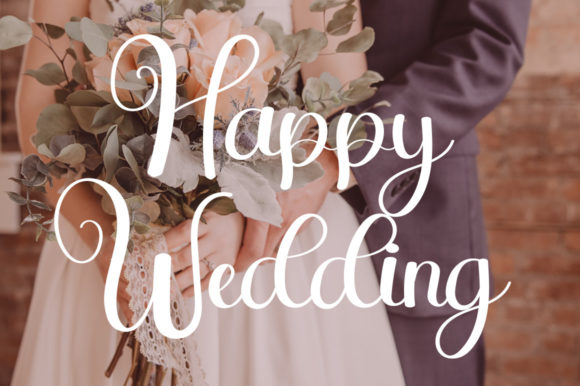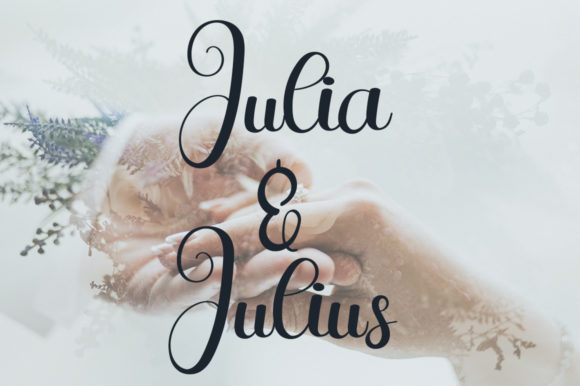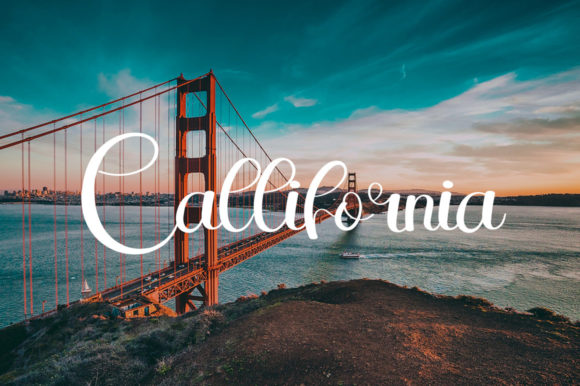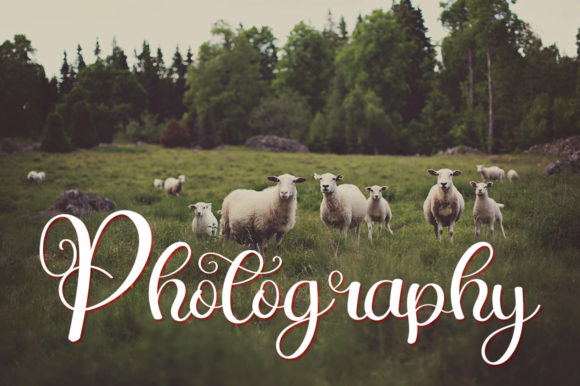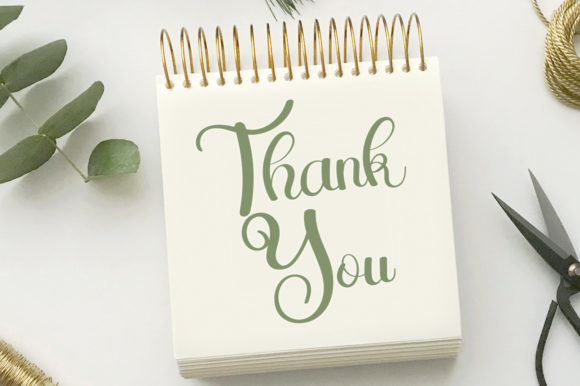
Introducing the Brilliant Mandala Font: Elevate Your Designs with Elegance
Are you a designer or crafter looking for a font that exudes sophistication and charm? Look no further than the Brilliant Mandala Font. This stunning handwritten font is perfect for adding a touch of elegance to your designs, from wedding invitations to logos and everything in between.
What is the Brilliant Mandala Font?
The Brilliant Mandala Font is a chic, detailed, and elegant handwritten font that is sure to impress. Its beautiful, flowing script is perfect for designs that require a personalized style, such as:
- Wedding invitations and thank you cards
- Wedding decorations and signage
- Greeting cards and stationery
Why Choose the Brilliant Mandala Font?
There are many reasons why the Brilliant Mandala Font stands out from the crowd. Here are just a few:
- Elegant and sophisticated: The Brilliant Mandala Font has a refined, upscale feel that’s perfect for high-end designs.
- Versatile: This font looks beautiful on a variety of design materials, from digital files to print materials.
- Easy to read: Despite its intricate details, the Brilliant Mandala Font is surprisingly easy to read, making it perfect for body text and headings.
- Unique: The Brilliant Mandala Font has a distinctive, one-of-a-kind style that’s sure to set your designs apart.
How to Use the Brilliant Mandala Font
The Brilliant Mandala Font is incredibly versatile and can be used in a variety of design applications. Here are a few ideas to get you started:
- Wedding designs: Use the Brilliant Mandala Font to create stunning wedding invitations, save-the-date cards, and wedding stationery.
- Branding and logos: The Brilliant Mandala Font is perfect for creating elegant logos and branding materials for businesses and entrepreneurs.
- Stationery and cards: Add a touch of elegance to your greeting cards, thank you cards, and stationery with the Brilliant Mandala Font.
- Digital designs: The Brilliant Mandala Font looks beautiful on digital files, such as social media graphics, blog headers, and more.
Tips and Tricks for Working with the Brilliant Mandala Font
Here are a few tips and tricks to help you get the most out of the Brilliant Mandala Font:
- Pair it with a simple font: The Brilliant Mandala Font is a statement font, so pair it with a simple font to create visual balance.
- Experiment with colors: The Brilliant Mandala Font looks beautiful in a variety of colors, from metallic ink to pastel hues.
- Play with textures: Add depth and interest to your designs by pairing the Brilliant Mandala Font with different textures and patterns.
The Brilliant Mandala Font is a stunning, elegant handwritten font that’s perfect for designers and crafters looking to add a touch of sophistication to their designs. With its versatile style, easy readability, and unique charm, this font is sure to become a favorite in your design arsenal. So why wait? Download the Brilliant Mandala Font today and start creating beautiful, eye-catching designs that will leave a lasting impression.